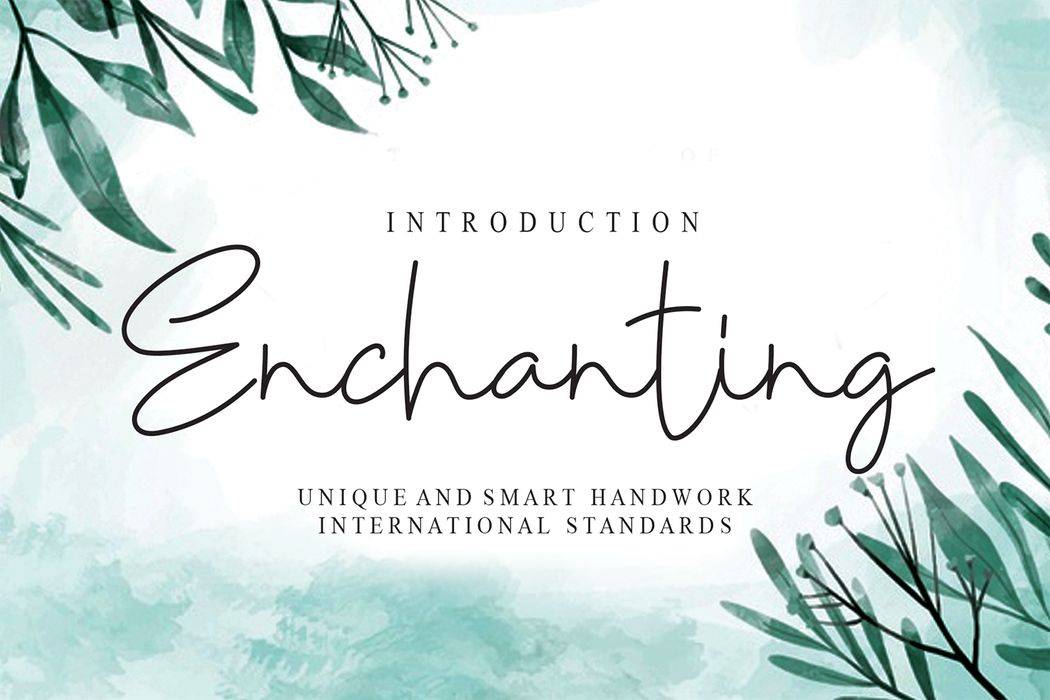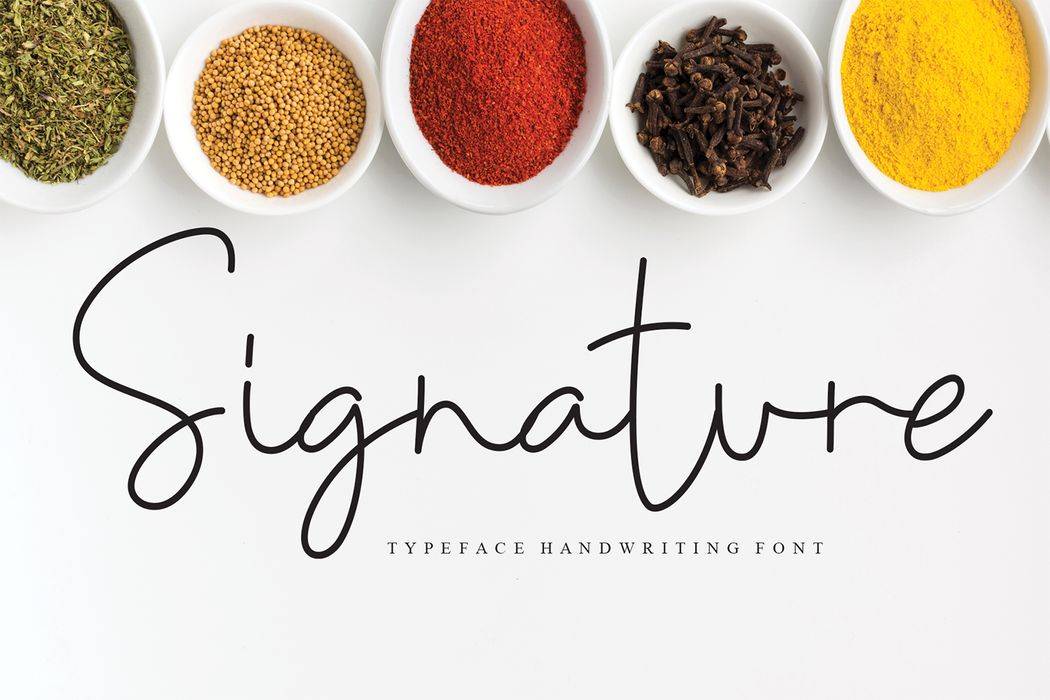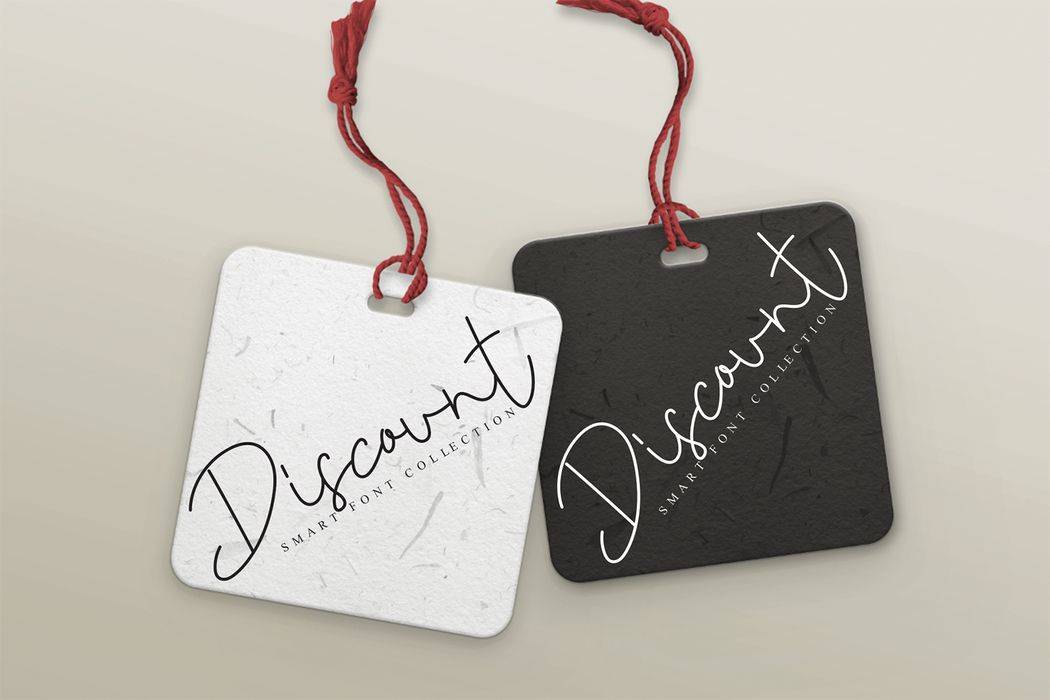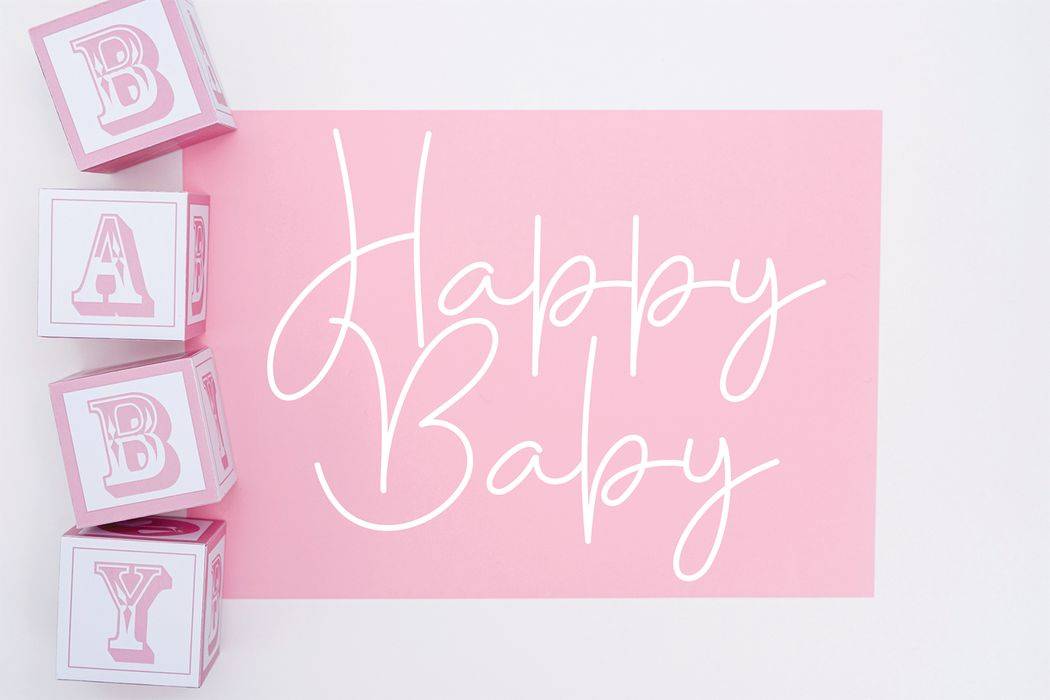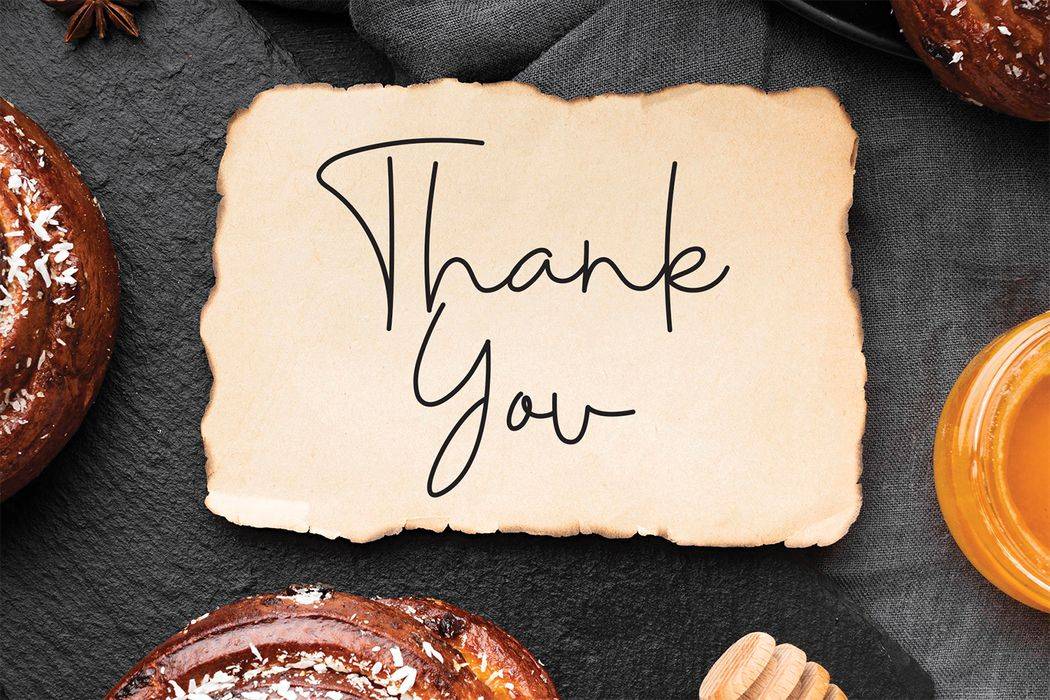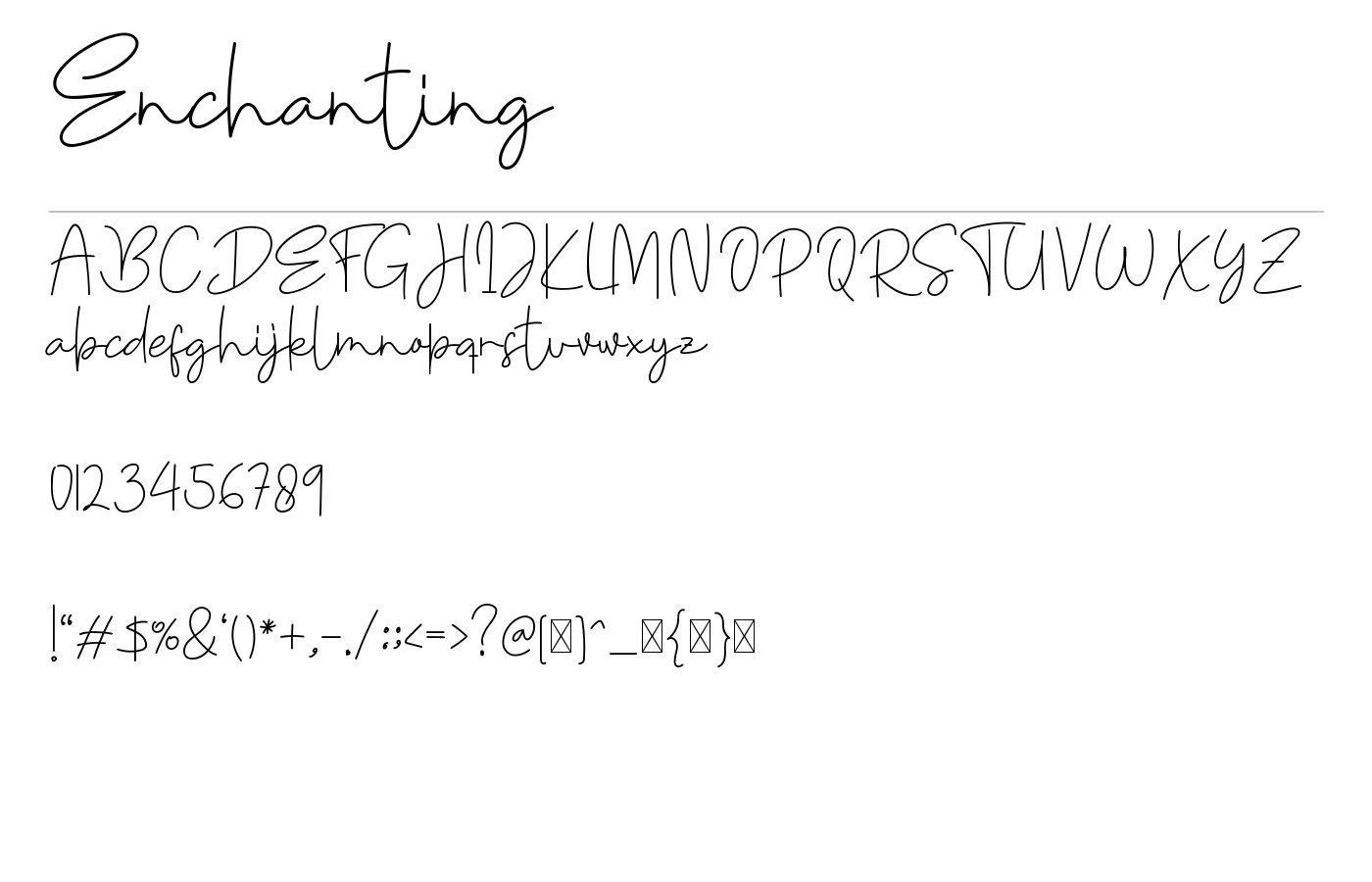
Enchanting Font is a delicate, handwritten script typeface that feels light and airy with its thin, flowing strokes and casual, friendly style. Its tall x-height and loose spacing create an elegant yet approachable look, perfect for adding a personal, whimsical touch to invitations, branding, and creative projects that want to convey warmth and charm. This font works beautifully for designs that need a modern, playful, and intimate feel.
Enchanting Font
About Enchanting Font
| Font family | Enchanting Font |